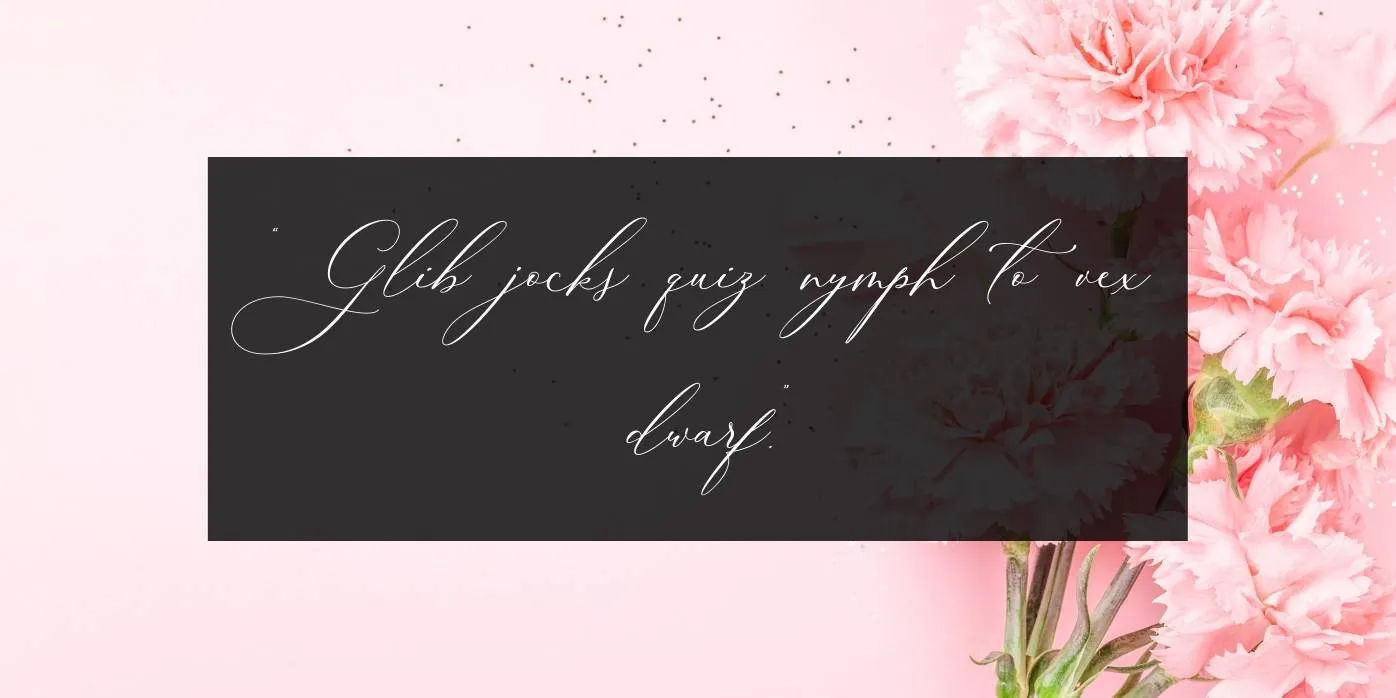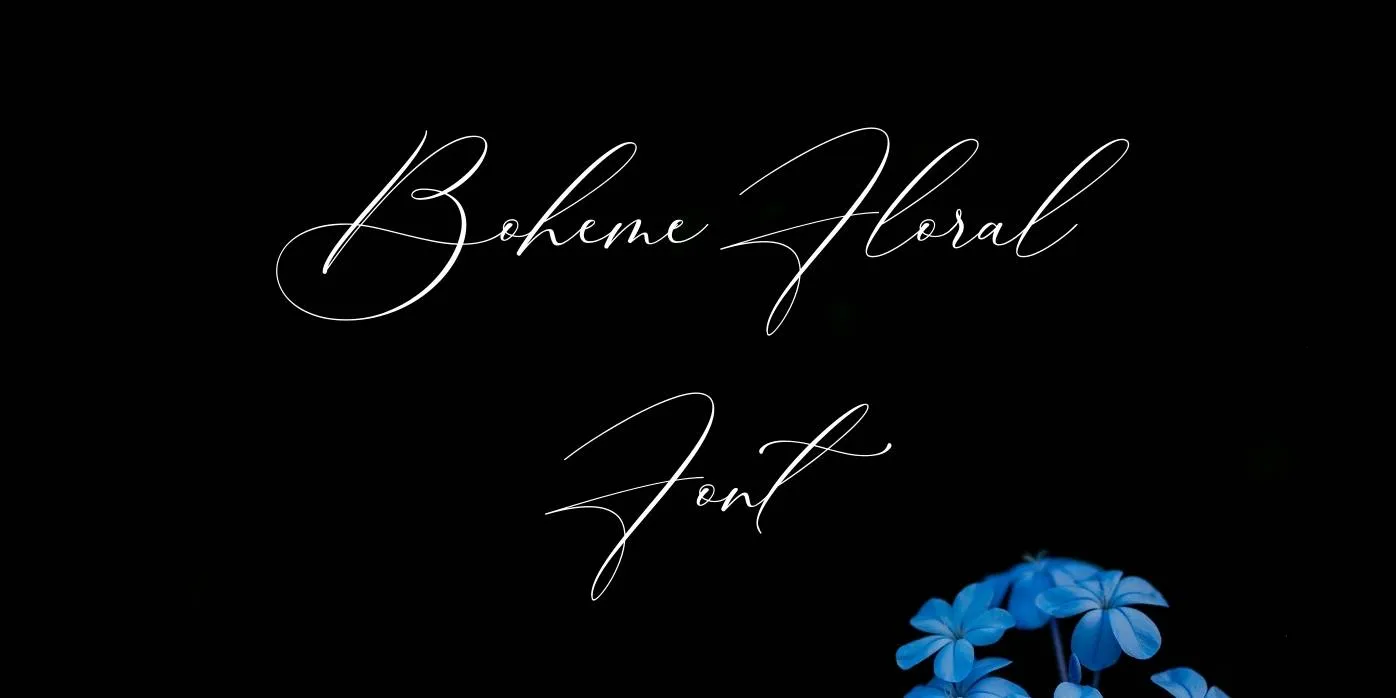
Boheme Floral Font
Today, we are going to introduce a stylish and outstanding typeface named Boheme Floral Font. This classic typeface belongs to the calligraphy fonts. The main creator of this font family was 50Fox Studio. This company released it on 30th September 2020.
This amazing typeface has available only in the regular style containing 410 glyphs and 1000 units per em. You can easily access this remarkable font with just a single click from here. Also, you can use this classy typeface for various purposes like printing, web designing, poster making, banner designs, and many more. It is well specified by the CSS and SVG.
Boheme Floral Font has a very fine texture. So, it is easily readable even in small sizes and long texts as well. It comes in more than 100 special calligraphic characters. If it is your desire to get progress in your plans then use its similar midnight font.